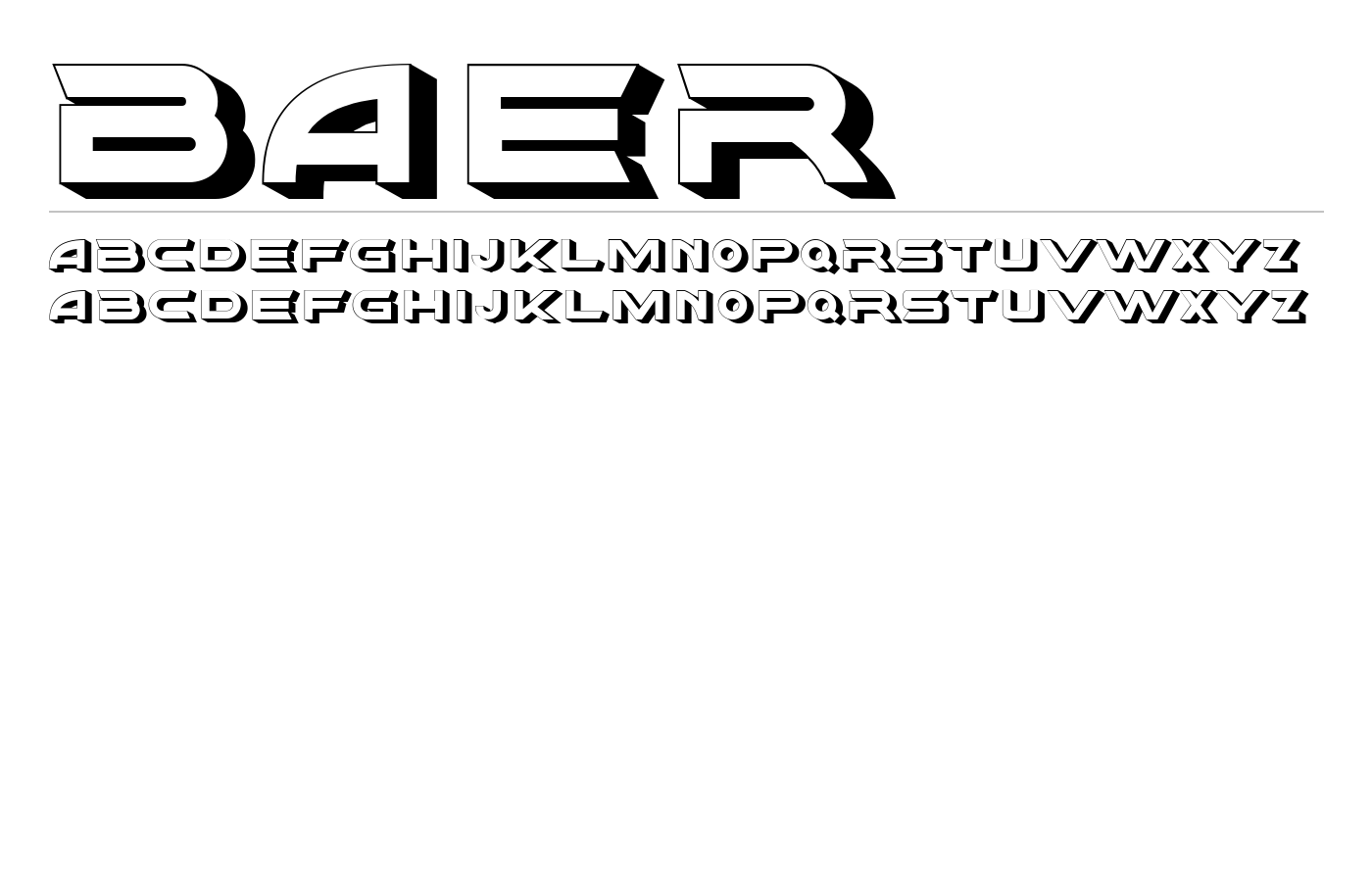
Baer is a bold, geometric sans serif font with a strong, blocky presence and a distinctive three-dimensional shadow effect that adds depth and visual interest. Its wide, uppercase letterforms and playful curves give it a modern yet retro vibe, making it perfect for eye-catching headlines, logos, and display uses where a fun, dynamic style is desired. This font works especially well for brands and designs aiming to convey energy and creativity with a touch of vintage flair.
Baer Font
About Baer Font
| Font family | Baer Font |